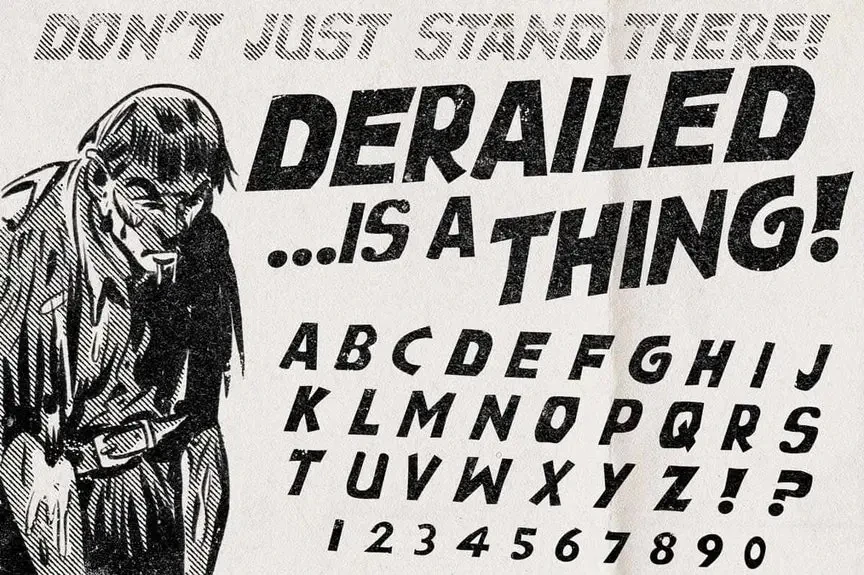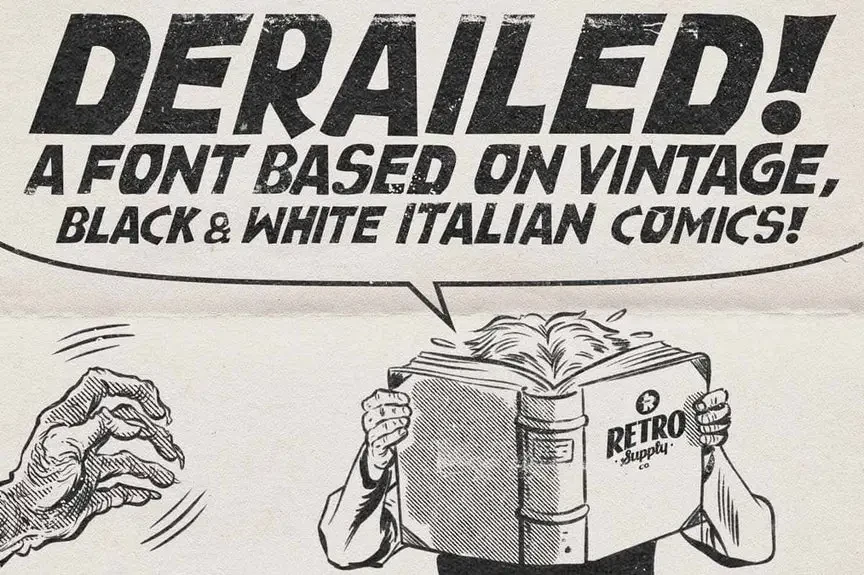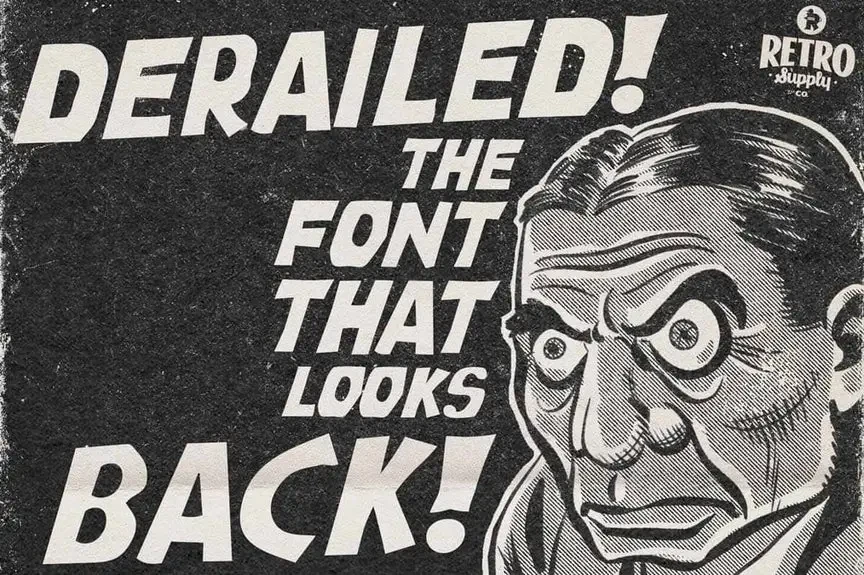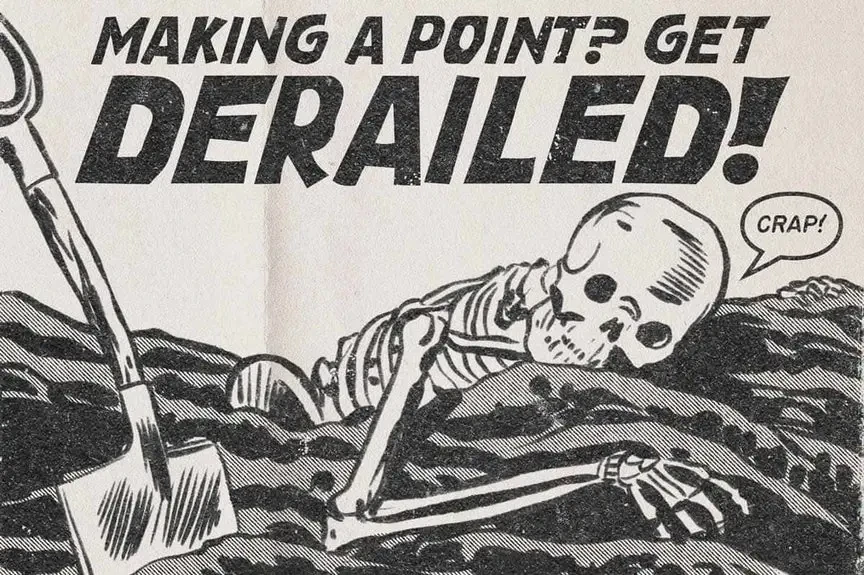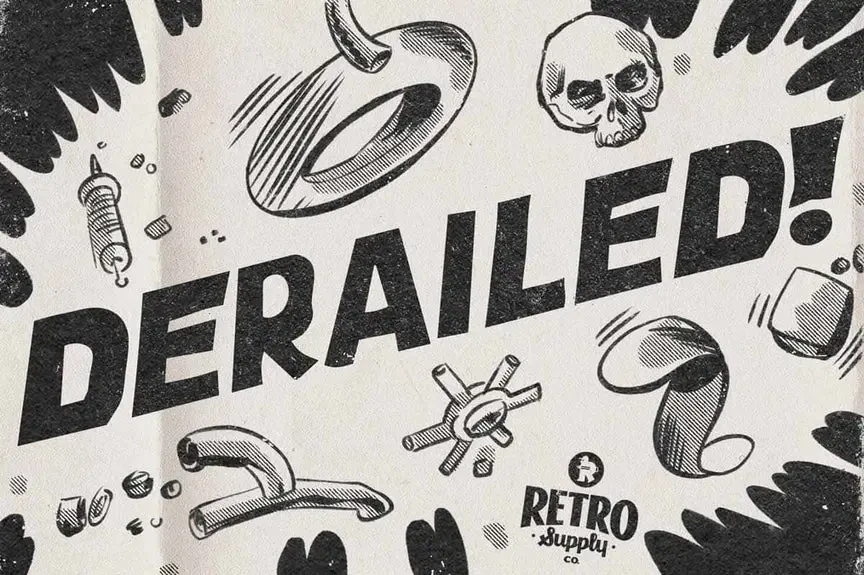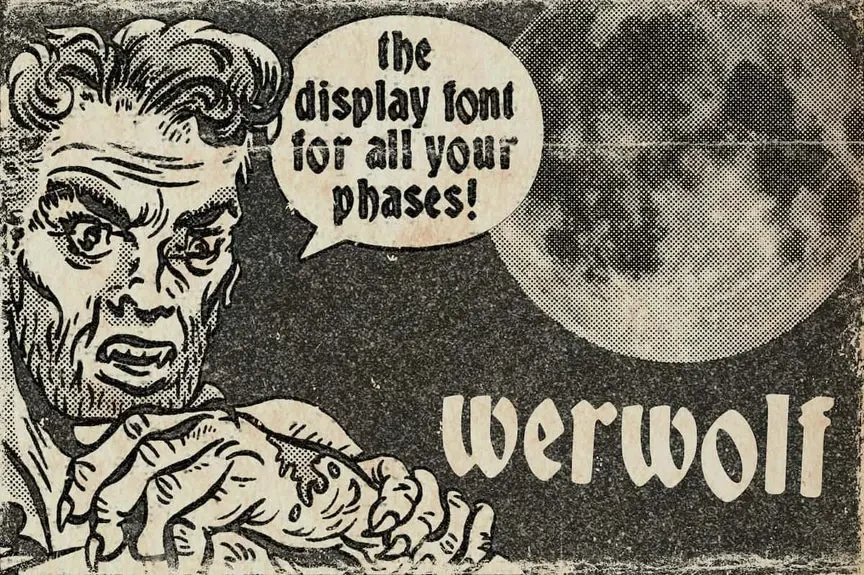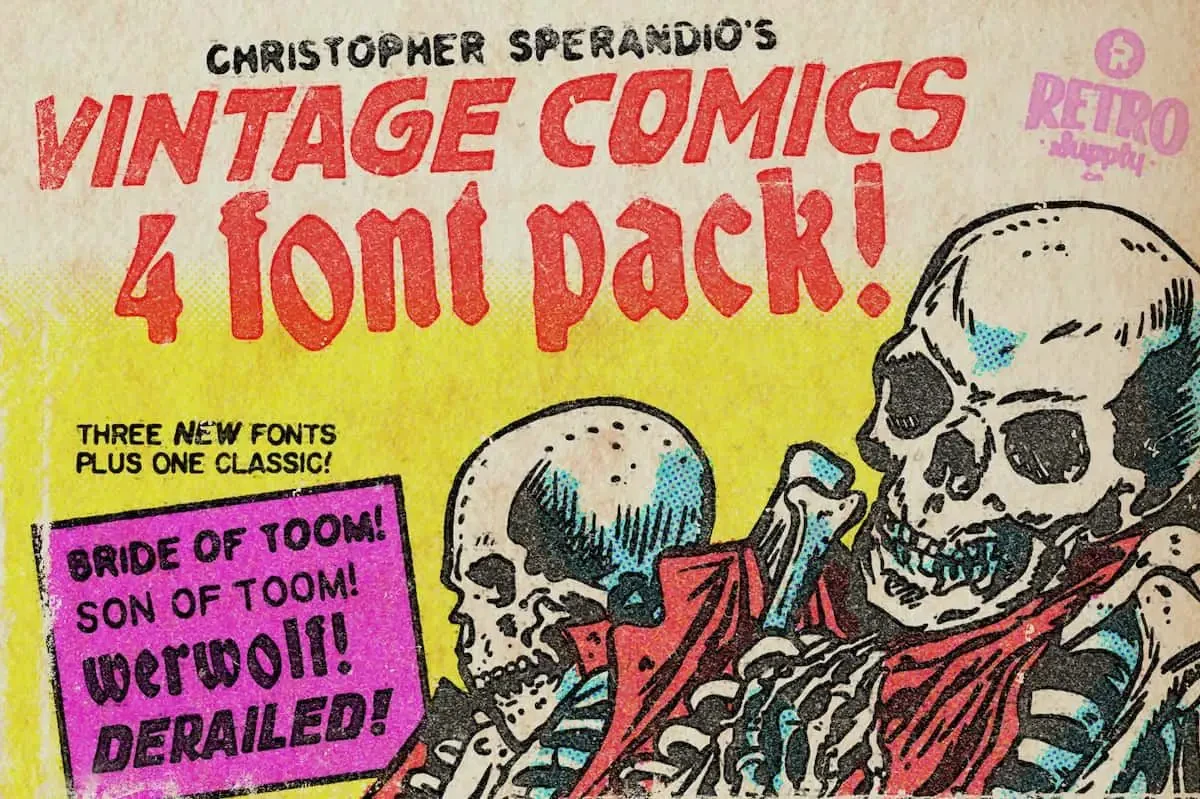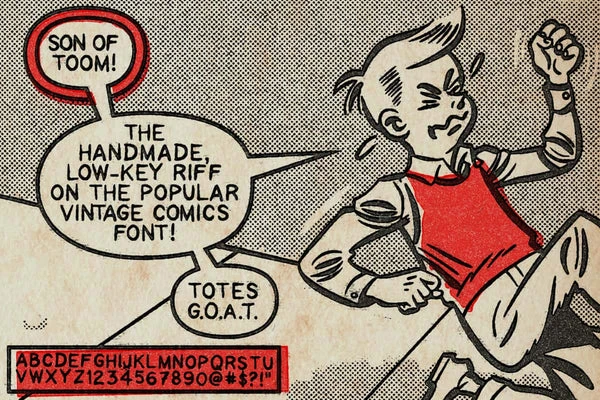
Give your comic projects an authentic vintage feel with the Vintage Comic Font Pack. This bundle of four handcrafted fonts brings the gritty, expressive lettering of classic comics straight to your designs. Whether you’re working on a graphic novel, poster, or branding, these retro comic fonts add instant character and mood.
The Vintage Comic Font Pack includes four unique fonts: Son of TOOM, Bride of TOOM, Werwolf, and DERAILED! Each font is designed to expand your comic lettering capabilities, from lighthearted dialogue to dark horror titles. Perfect for illustrators, comic artists, and designers who want authentic vintage lettering fonts.
- ✅ Four Distinct Fonts → Get a versatile range of styles for different moods and applications.
- ✅ Handmade & Authentic → Each font is crafted from real printed type or hand-drawn lettering for an organic look.
- ✅ Vintage Comic Aesthetic → Perfect for achieving that old comic book feel without extra effort.
Unlike generic digital fonts, this pack is built from real vintage sources. Werwolf comes from antique wood type purchased in Leipzig, while DERAILED! captures the spirit of dark Italian comics from decades ago. Son of TOOM and Bride of TOOM offer complementary weights for dynamic layouts. You get professional-grade comic book fonts that stand out.
- 🎨 Comic book lettering and dialogue balloons
- 📰 Vintage-style posters and flyers
- 🕸️ Horror, mystery, and pulp fiction projects
- 🏷️ Branding for retro-themed businesses
- 📖 Graphic novels and zines